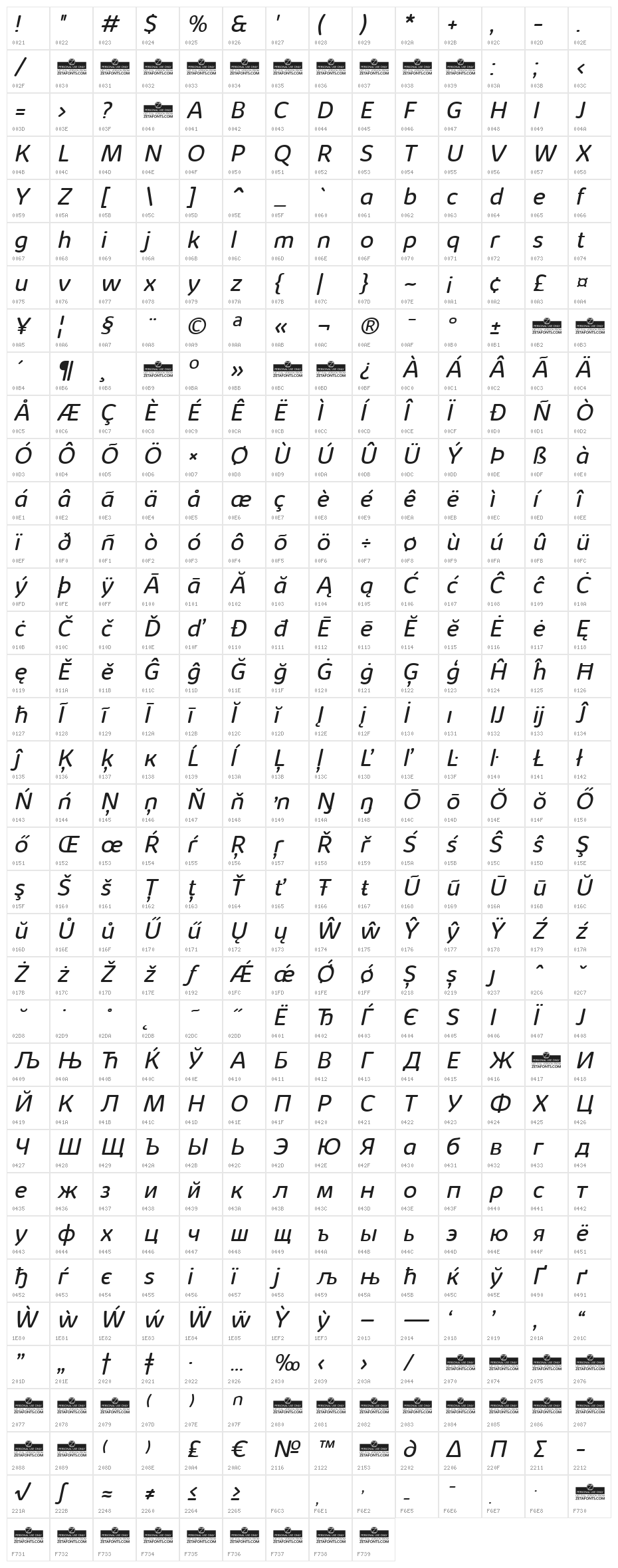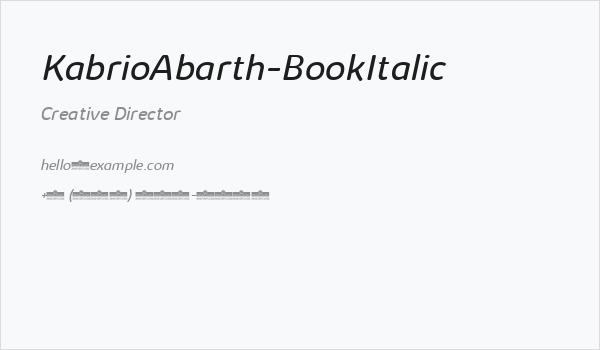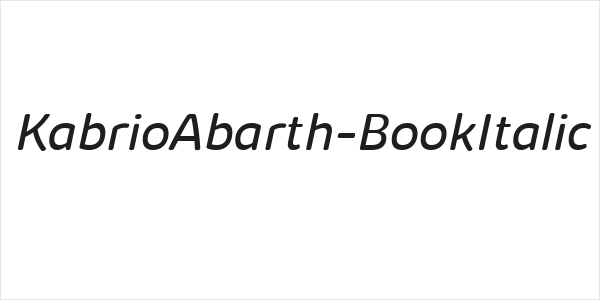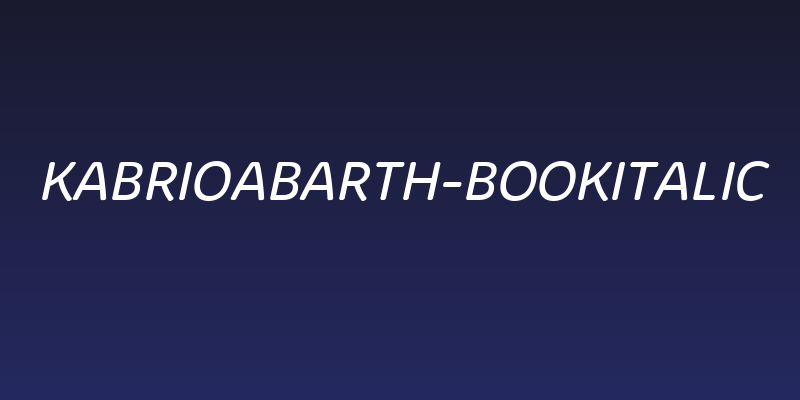
KabrioAbarth-BookItalic Font
KabrioAbarth-BookItalic Description
This font presents a sleek and modern aesthetic with its italicized form, offering a dynamic and forward-leaning appearance. The characters are crafted with smooth curves and consistent stroke widths, providing a clean and professional look. The uppercase letters maintain a balanced height, while the lowercase letters exhibit a harmonious flow, enhancing readability. The numerals are distinct and align well with the overall style, ensuring clarity in numerical data presentation. Special characters are well-integrated, maintaining the font's cohesive design. This font's italic style adds a touch of elegance and movement, making it suitable for various creative applications.
| Proposed Projects | Ideal for branding, advertising, and editorial design projects that require a modern and elegant touch. |